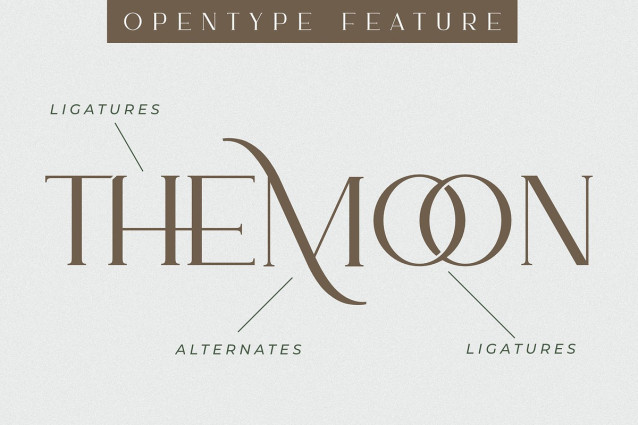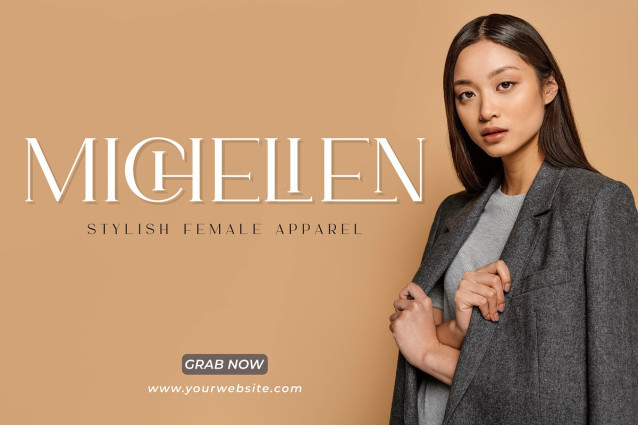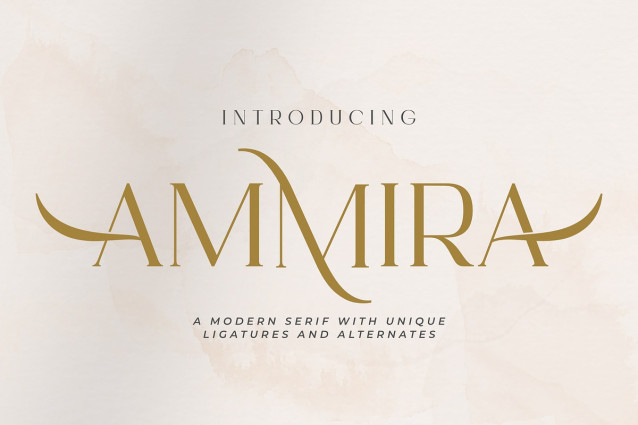
Ammira Font
Ammira Font is a modern and elegant serif font that features unique alternates and ligatures. This font is perfect for casual and elegant design projects, such as logos, branding, business cards, invitations, and more. Ammira is easy to use and versatile, giving your designs a fresh and sophisticated look. The font’s clean lines and stylish curves make it ideal for fashion, beauty, and lifestyle designs.
You can access the alternates and ligatures through OpenType features or by using a glyphs panel. You can also mix and match the uppercase and lowercase letters to create stunning combinations. Ammira comes with a full set of characters, including numbers, punctuation, symbols, and multilingual support.